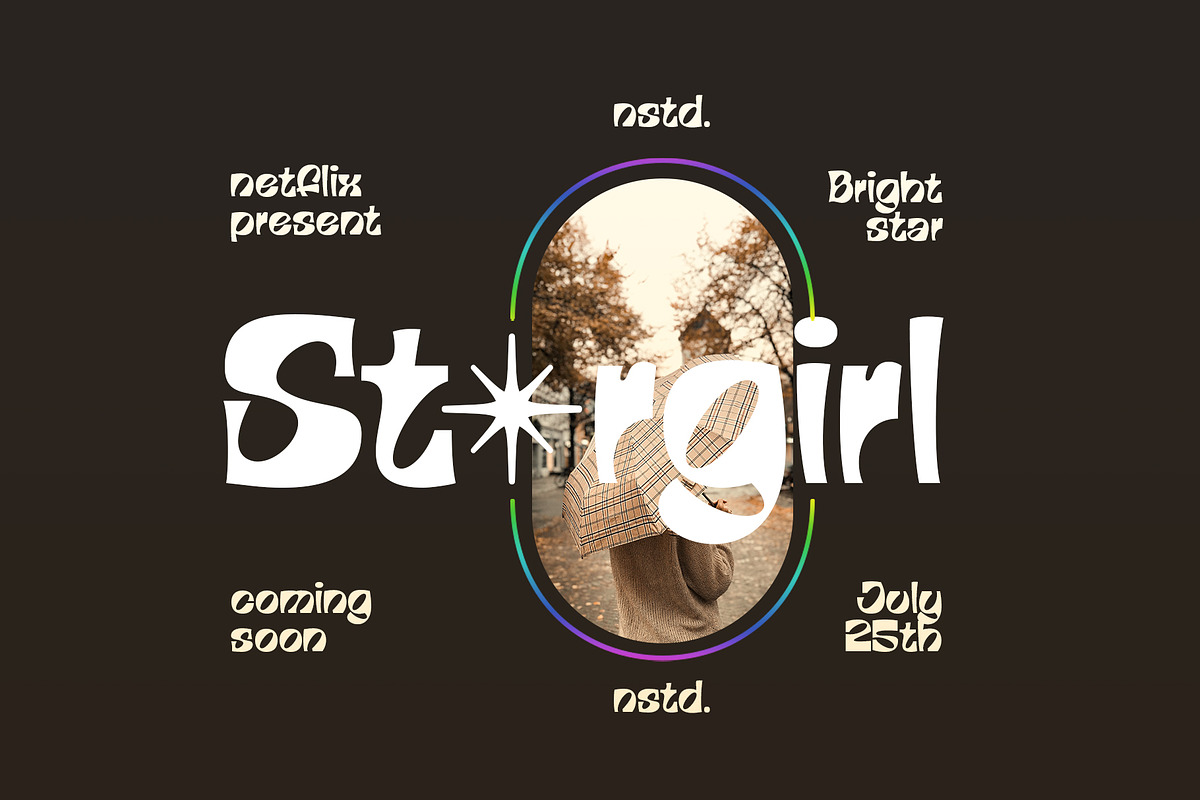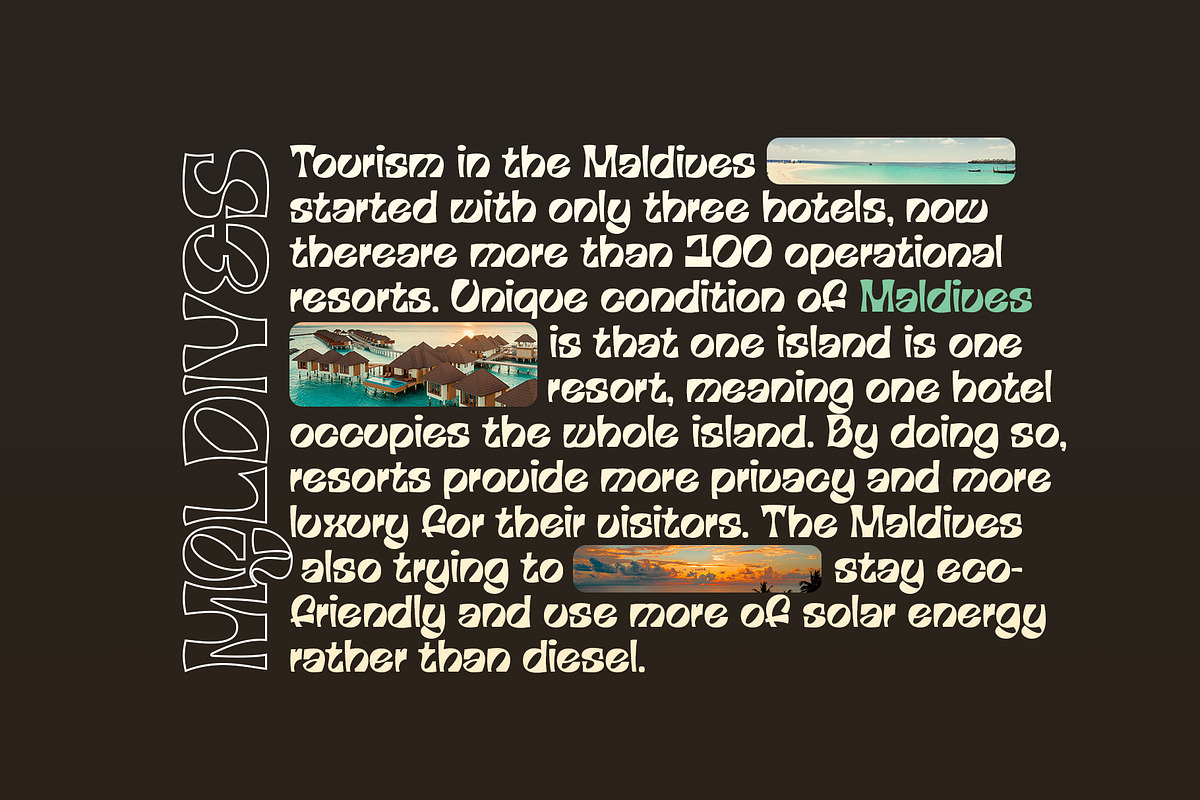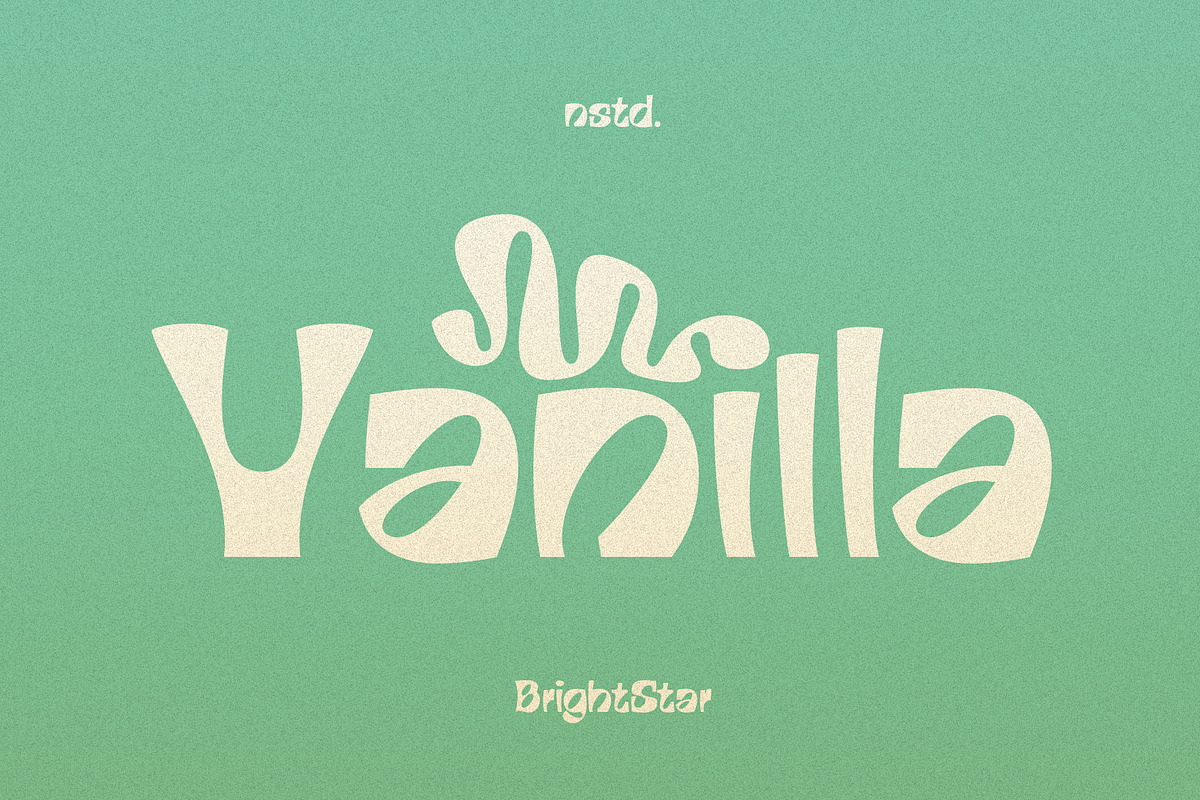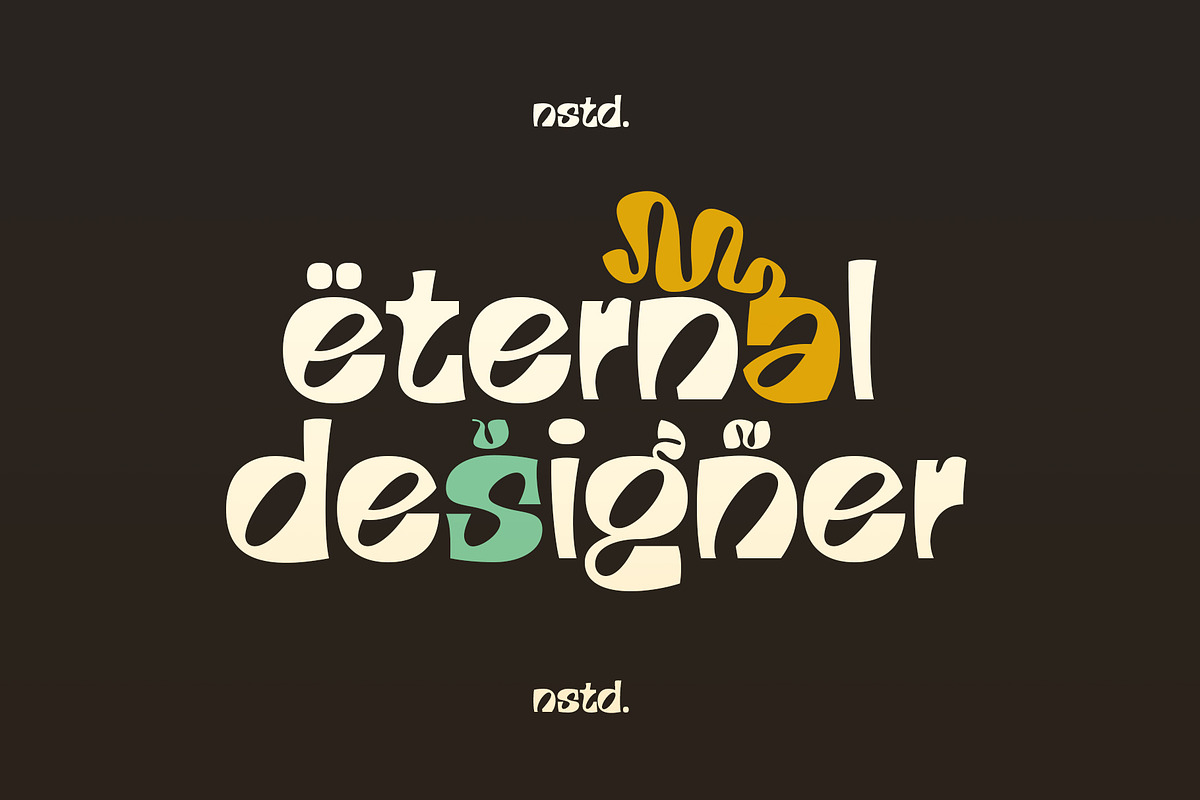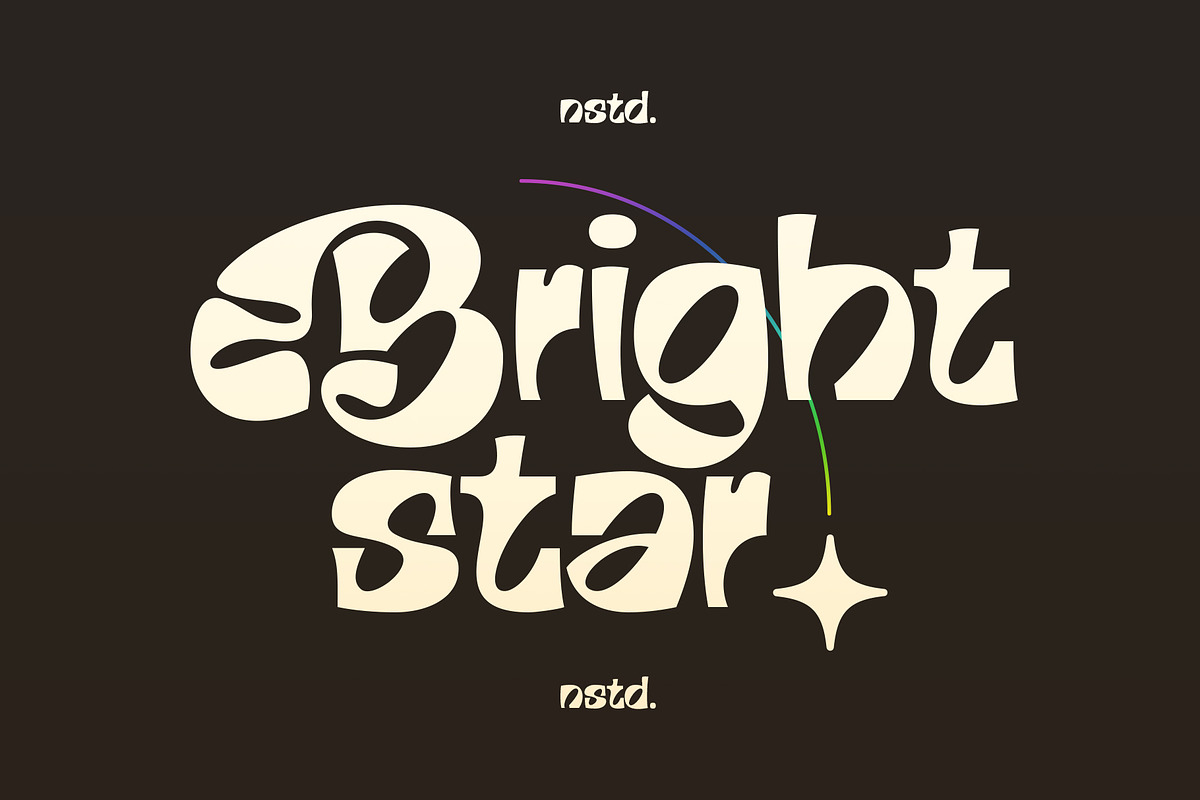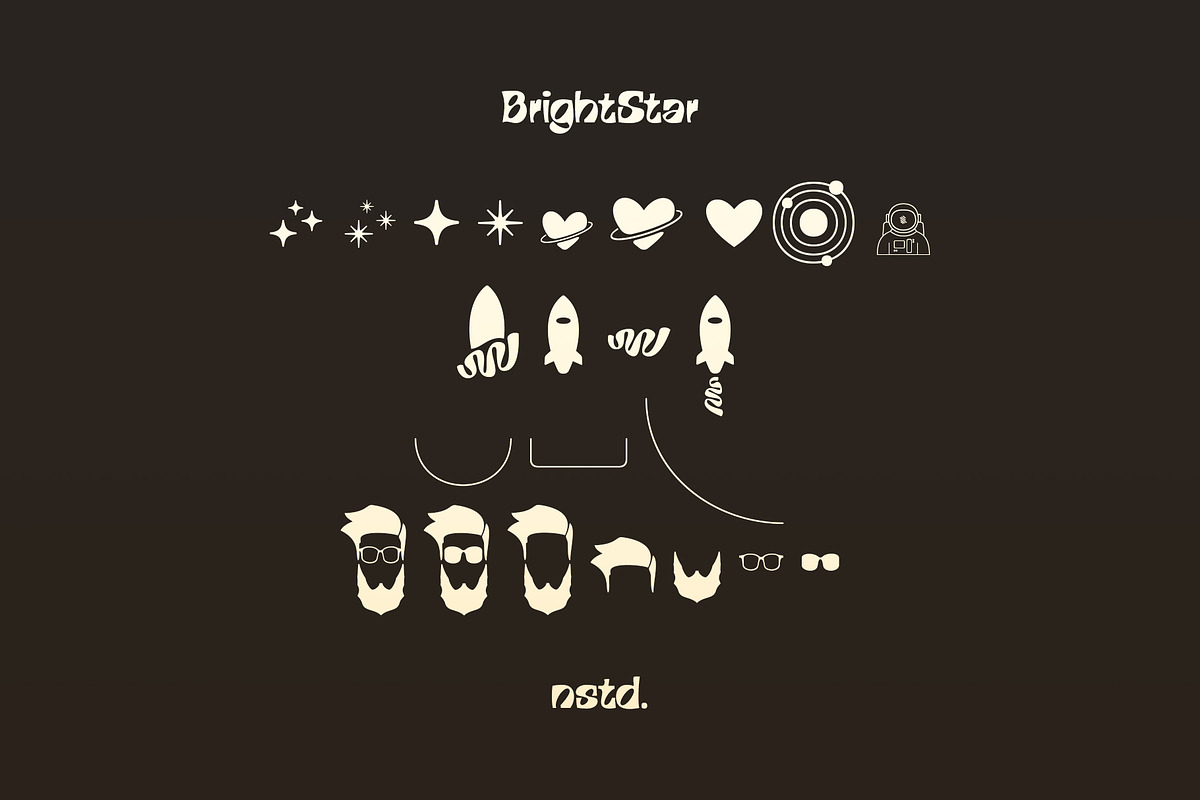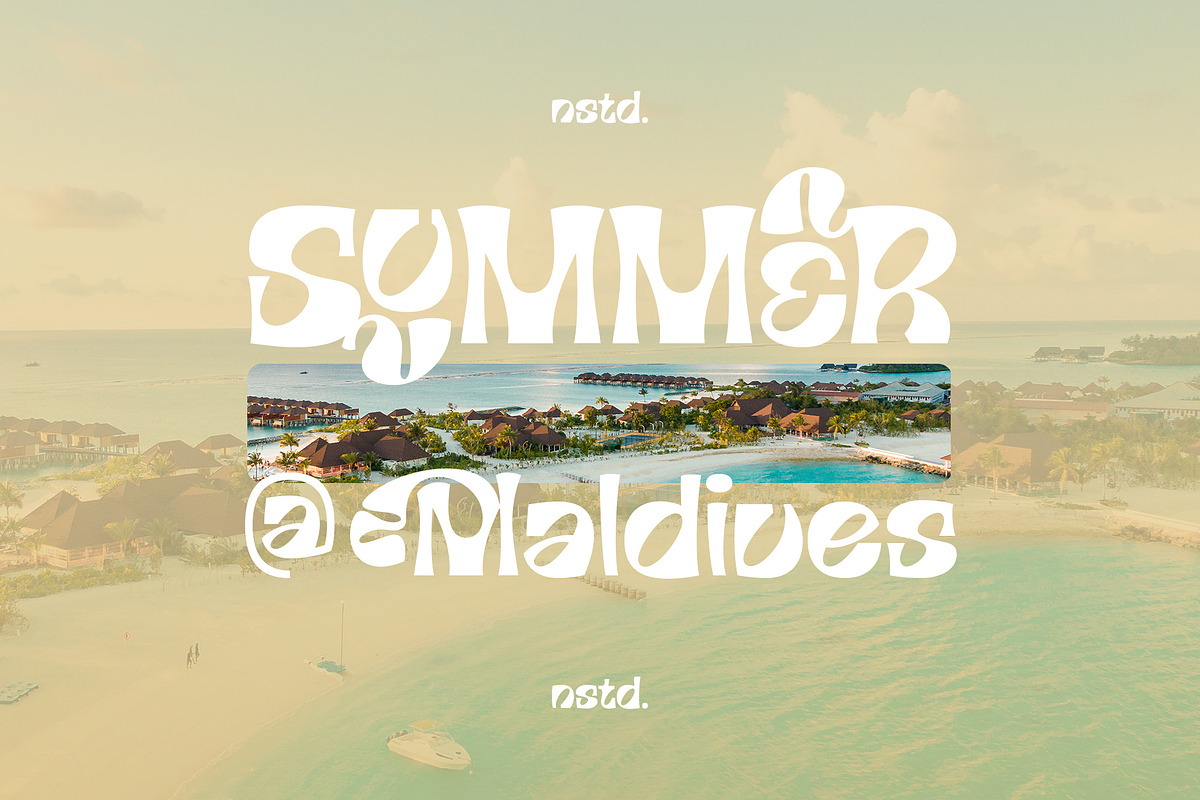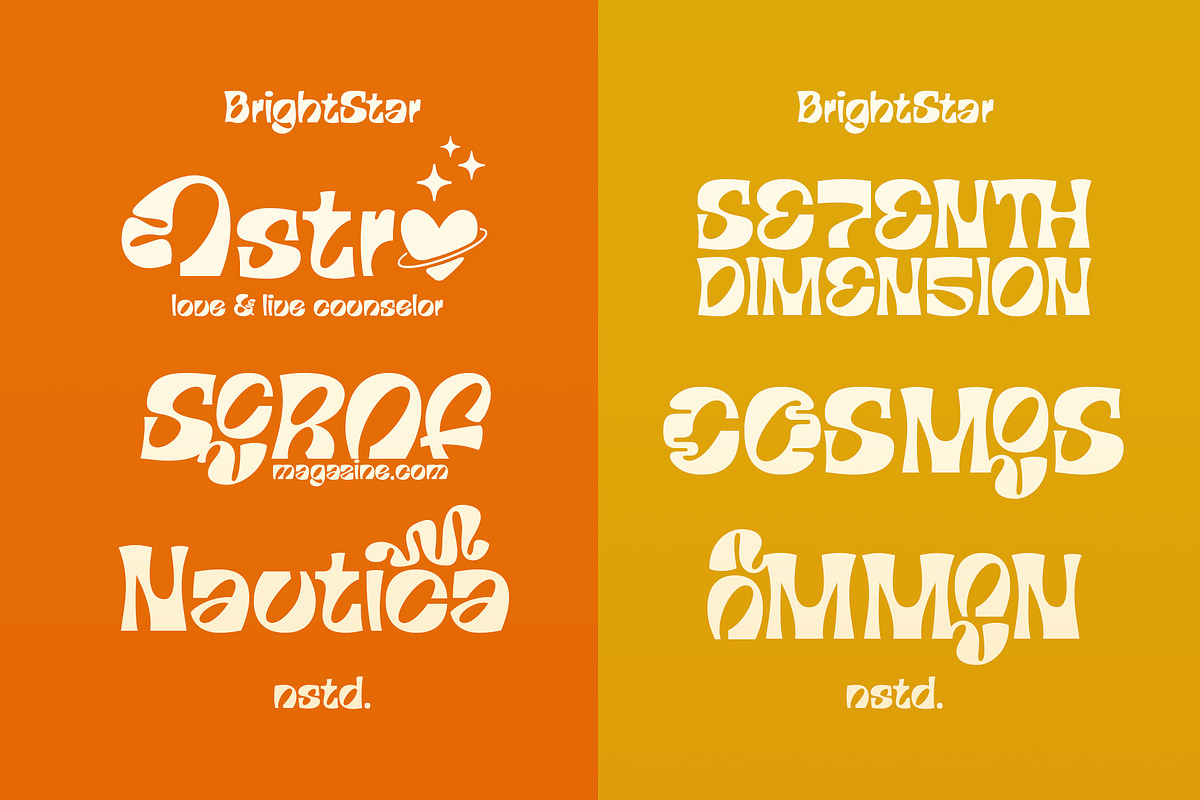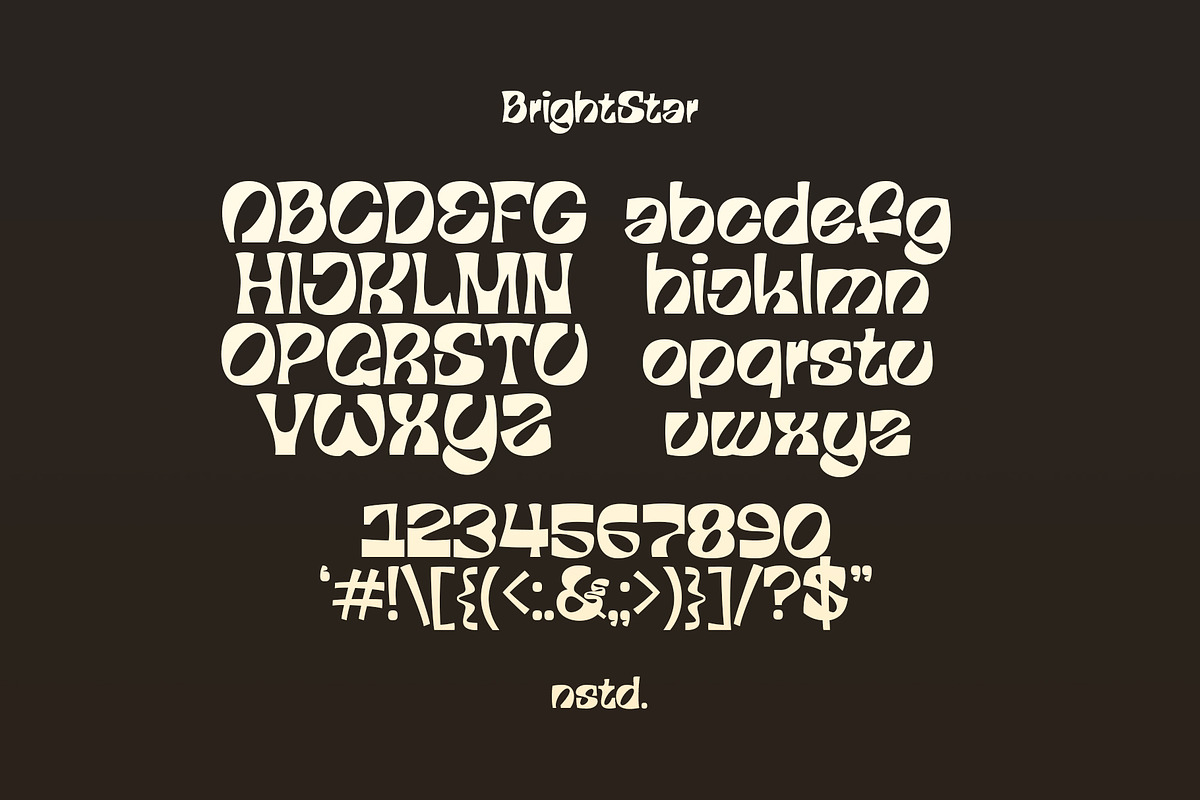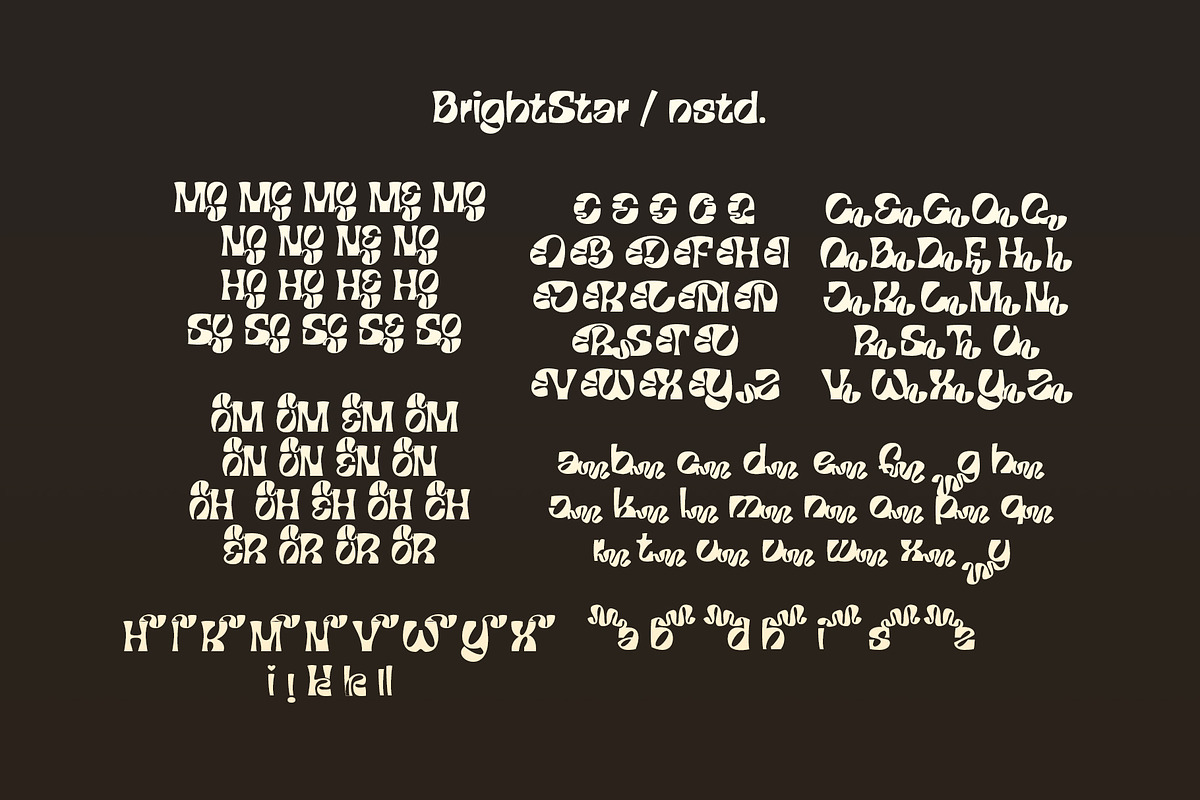
Bright Star
Bright Star is a harmonized retro font. Designed carefully with unique swash, ligature and extra ornament. It comes with two family, regular and oblique. A retrospect with modern touch. Versatile enough to go with any kind of your work.